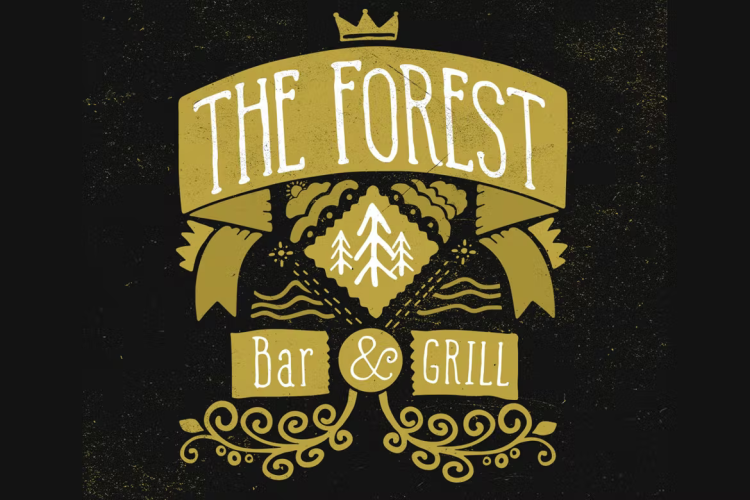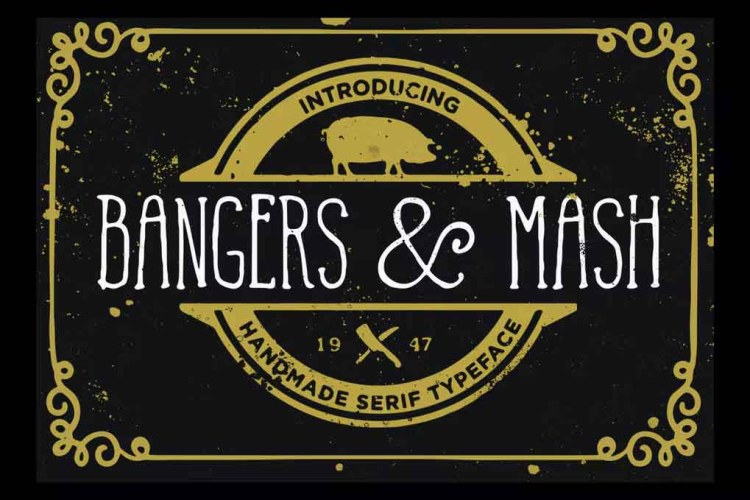
Bangers and Mash Font
Bangers and Mash is my new handmade serif font. I named it after the great British institution that is Bangers ‘n’ Mash, also known as sausages and mash. Bangers and Mas…
Bangers and Mash is my new handmade serif font. I named it after the great British institution that is Bangers ‘n’ Mash, also known as sausages and mash.
Bangers and Mash font usage
Bangers and Mash is a cheeky little beast, it’s loose and lively. It trips along the baseline without a care in the world.
The tiny decorative serifs give it a nostalgic and quirky feeling.
Bangers and Mash would be great for branding, invitations, and other fun design projects requiring a quirky handcrafted feel.
Reports, white papers and book interiors hold the eye longer when the text face has real serifs; Bangers and Mash Font keeps that rhythm without looking old-fashioned.
Food, spirits and cosmetics brands lean on serif wordmarks to suggest age and care. Bangers and Mash Font gives that signal at wordmark size.
Set Bangers and Mash Font for the body of an award or a diploma and keep the recipient name in a script; the pairing is what makes a document feel official.
It sits in the Serif Fonts group and reads as branding, decorative, handwritten, playful. That makes it a candidate wherever those qualities help: headings, packaging, social graphics and brand work. Set it at the size you plan to use before deciding.